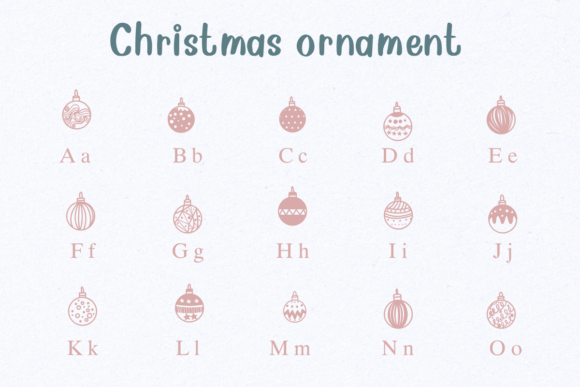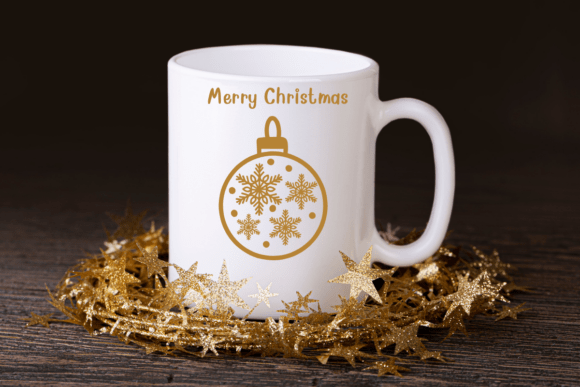
Christmas Ornament Font
Christmas Ornament is a dingbats font with a festive theme. Perfect for use on logos, websites, cards, invitation and so much more.